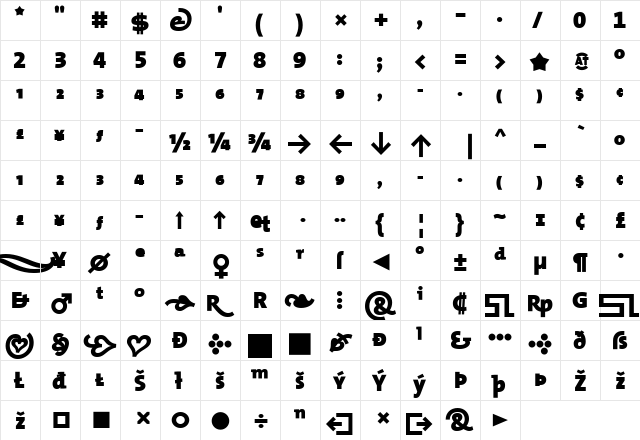
The Mix Black- Regular Font Preview
The Mix Black- Regular
The Mix Black- Regular Font Details
| Foundry | Copr. Luc as de Groot |
| Copyright | Copr. Luc as de Groot 1994 |
Design Context for The Mix Black- Typeface
The Mix Black- offers clean, dependable letterforms without strong stylistic allegiance, making it a practical choice for designers who need flexibility.